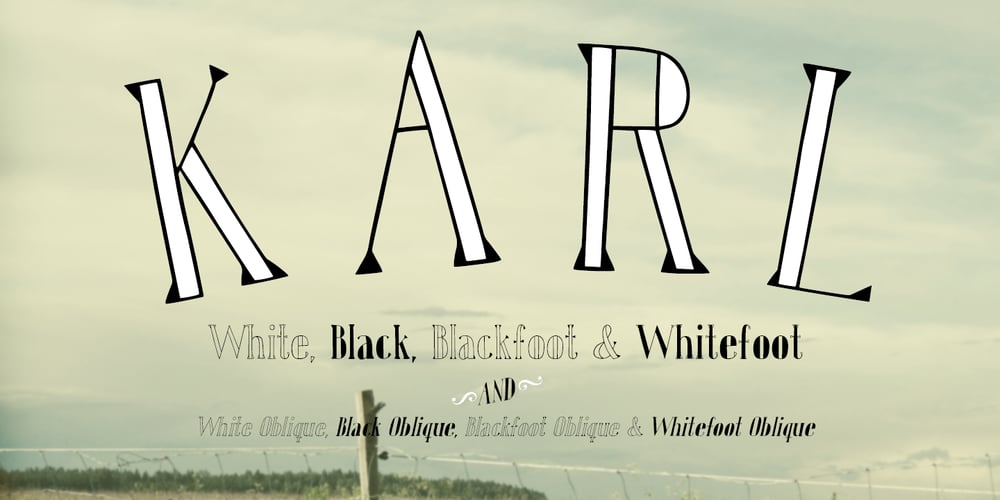
Karl
Karl font
Karl Font Family was designed by Andreas Brunelius and published by Gustav & Brun. Karl contains 8 styles and family package options. Karl is a hand drawn font that comes in four different variations + four oblique versions. You can combine the different styles of the family to make variations to your design.